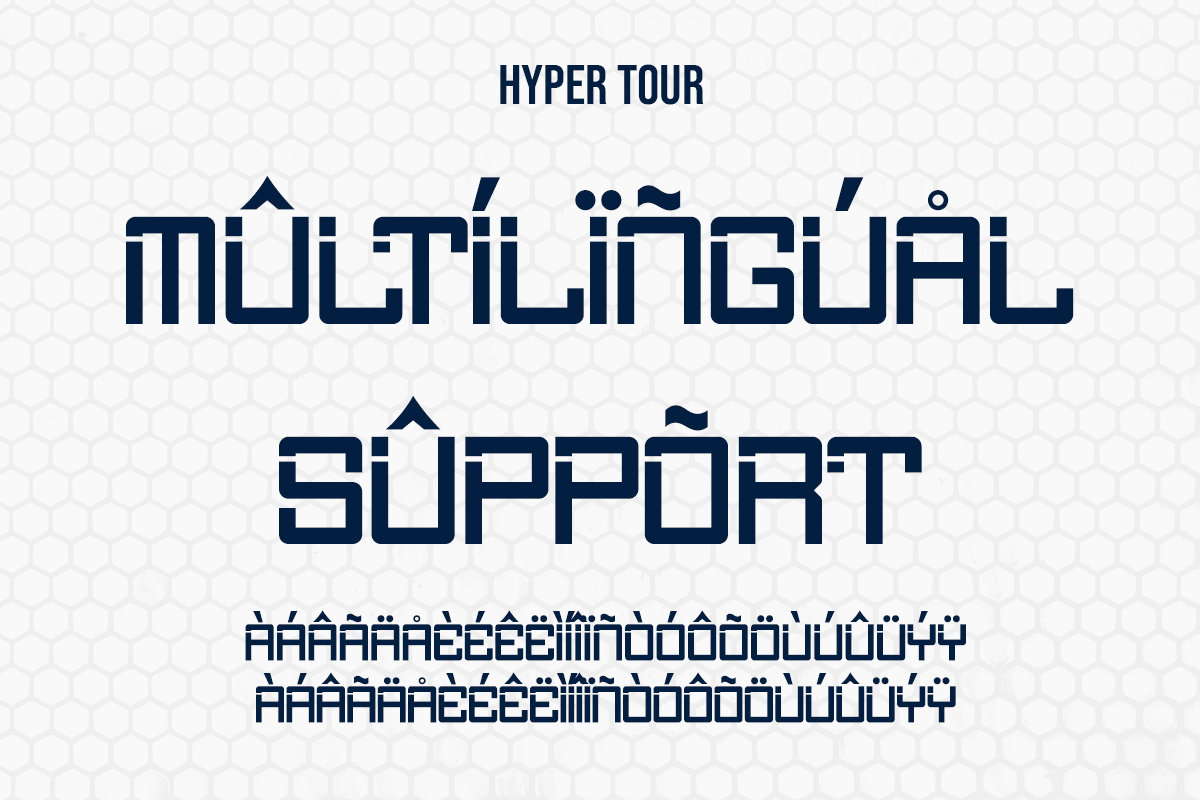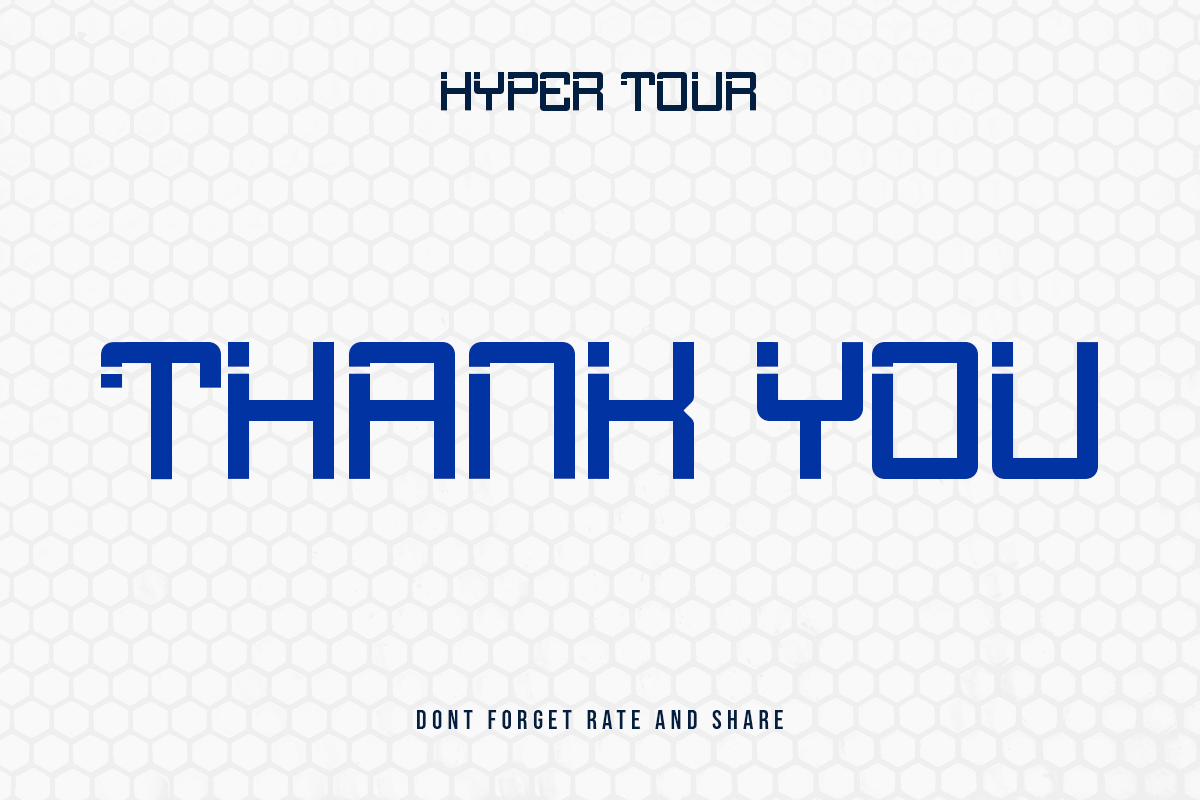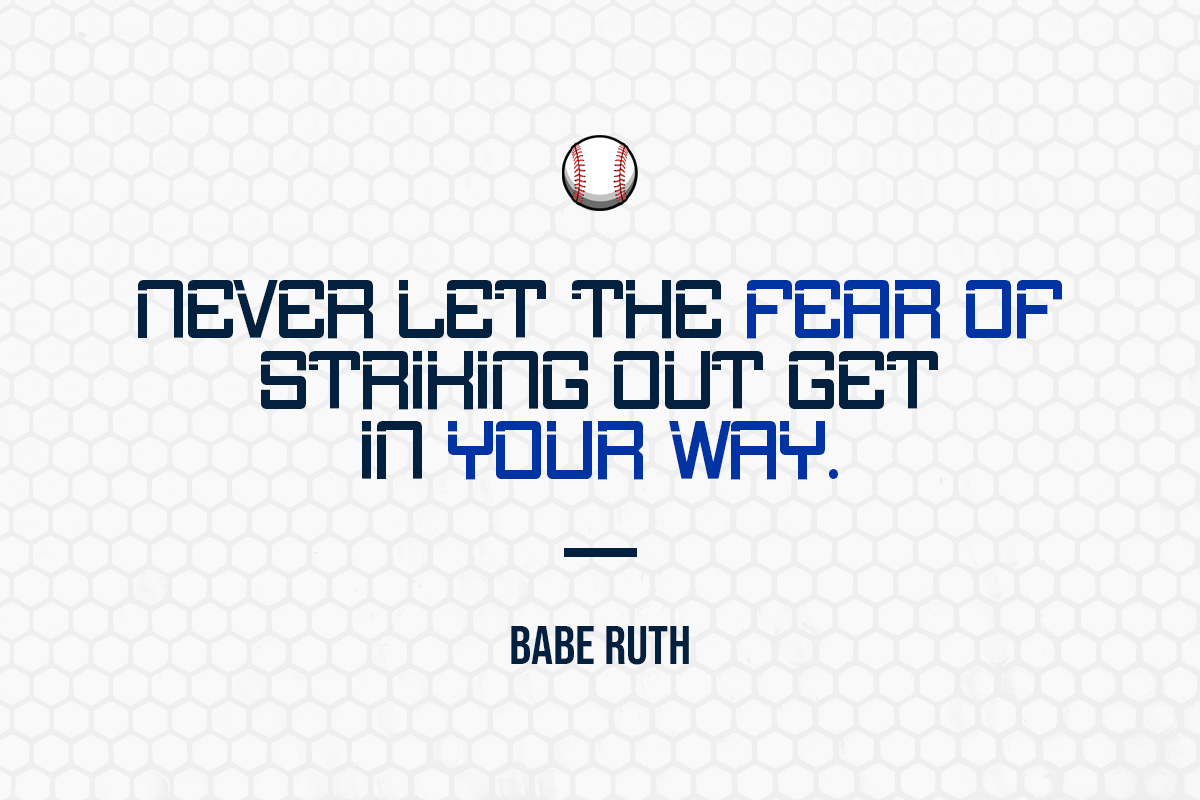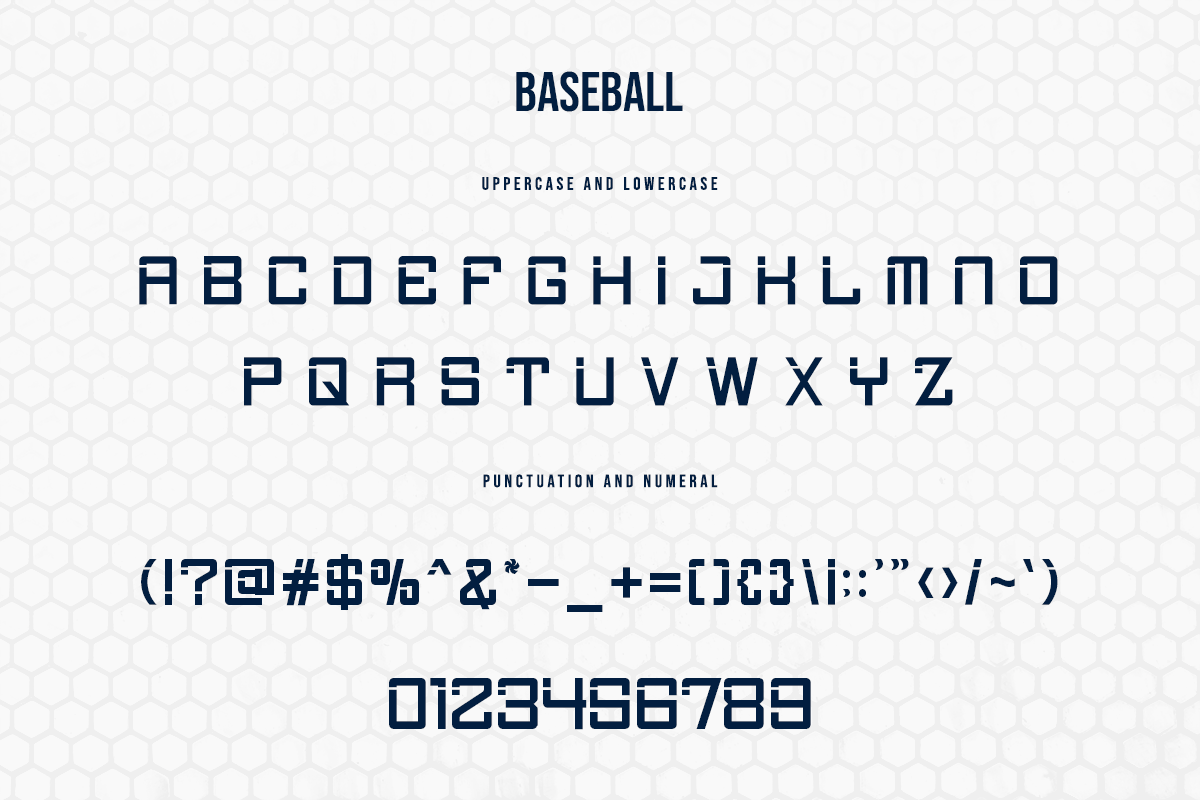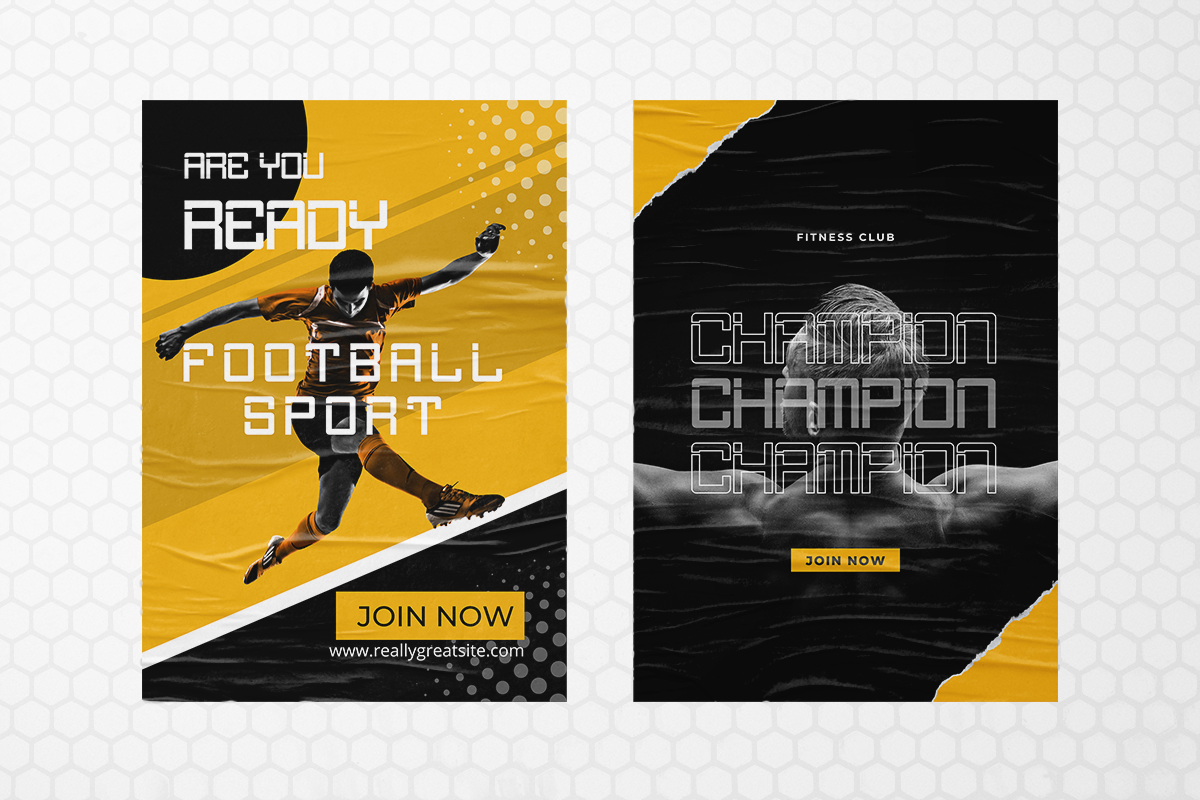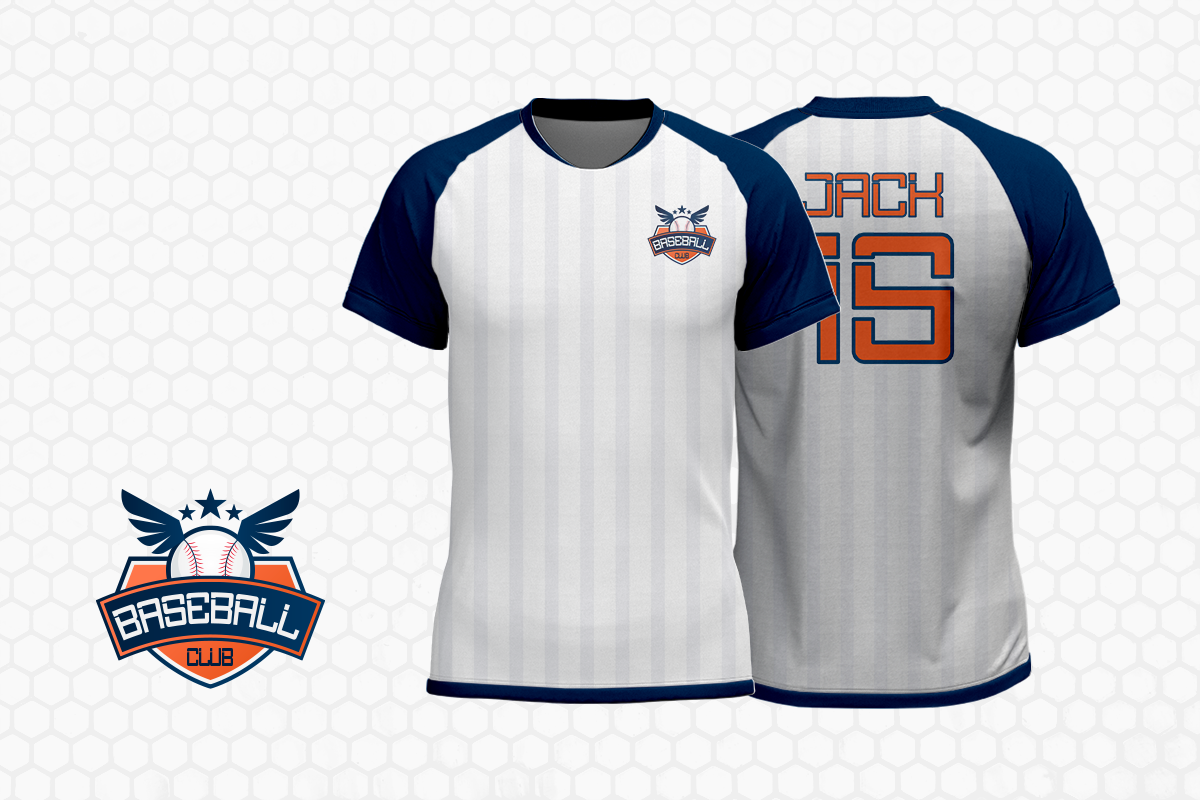
Baseball Modern Display Font Modern Baseball Display Font is a font whose appearance looks familiar to people who like sports fonts. This font is complete with a simple and standard display. Not accompanied by a curve or any addition, he is still charming and able to seduce every eye partner who sees it. The baseball font only has a little space that cuts the body of the letters. This font is legible. Modern Baseball Display Font is the best sports font that can use on the event title that uses sports themes, such as basketball and baseball. This font can contribute to building a good impression on everyone who sees it. Modern Baseball Display Font can use on match shirts, merchandise, stickers, and other clothing items. This font is a modern type font that is easily combined with various things. Modern Baseball Display Font is the best sports font that can use on the event title that uses sports themes, such as basketball and baseball. This font can contribute to building a good impression on everyone who sees it. Modern Baseball Display Font can use on match shirts, merchandise, stickers, and other clothing items. This font is a modern type font that is easily combined with various things. Our display and decorative fonts collection is compatible with usage as; Figma fonts, Canva fonts, Freepik Fonts, and Adobe Fonts. They also work as Windows Fonts and Apple Fonts. For your social media needs, you can use and install fonts in our collection of display and decorative fonts to use as Instagram Fonts, Facebook Fonts, and Twitter Fonts.